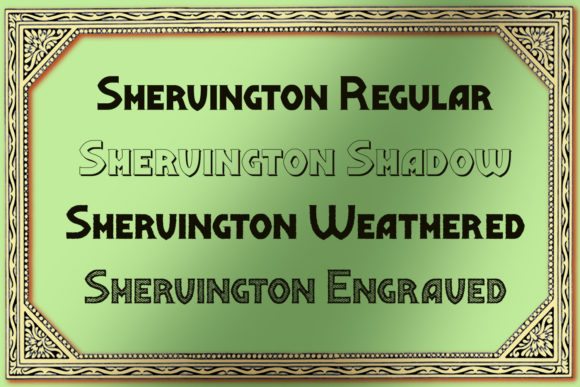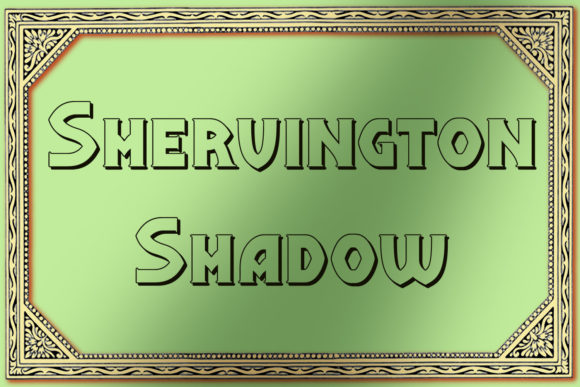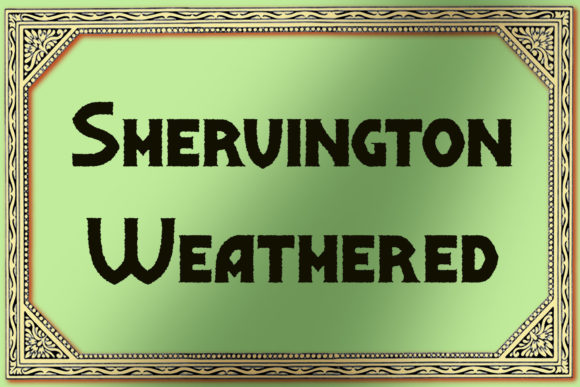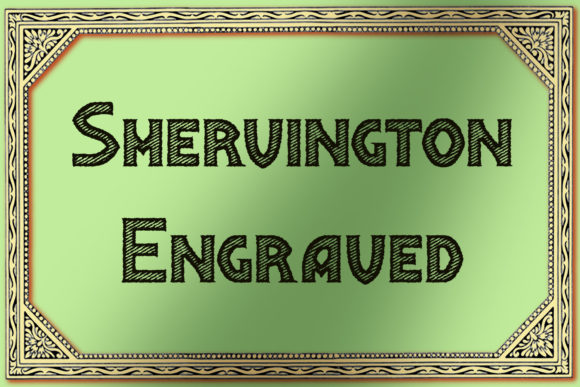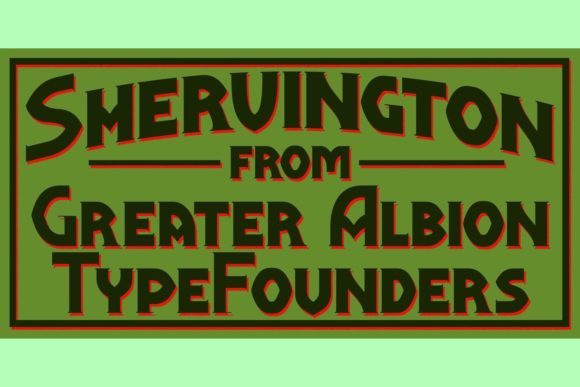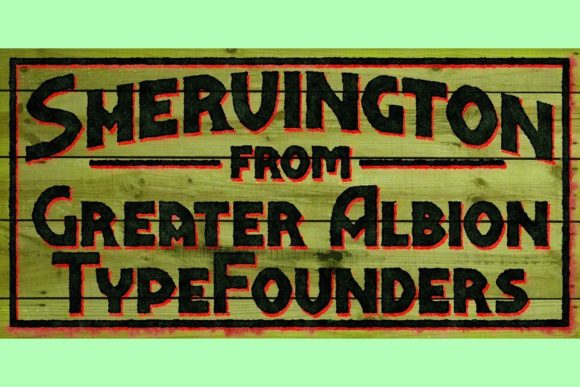
Introduction to Shervington Font Font
Fonts play a crucial role in design, and the Shervington Font font is a typeface that brings both character and versatility to any project. Whether you’re working on a branding project, a website, or a print design, the Shervington Font font offers a unique style that can elevate your work.
Make your designs stand out with Shervington, a stylish and unique display font.
It will look stunning on posters, thank you cards, quotes, greeting cards, logos, business cards and every other design which needs a creative touch .
Key Features of Shervington Font Font
Why Choose Shervington Font Font?
The Shervington Font font is more than just a typeface – it’s a design tool that helps you communicate your message with style and clarity. Its unique character set and versatile design make it suitable for a wide range of applications, from elegant invitations to bold headlines.
With its carefully crafted letterforms and balanced proportions, the Shervington Font font ensures readability and visual appeal across all mediums.
What makes Shervington Font font special?
The Shervington Font font stands out with its unique design, exceptional readability, and versatility across various design applications.